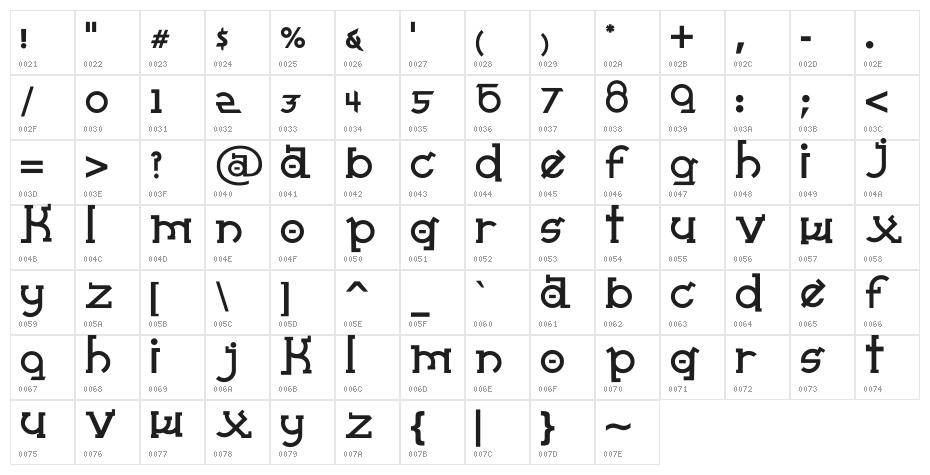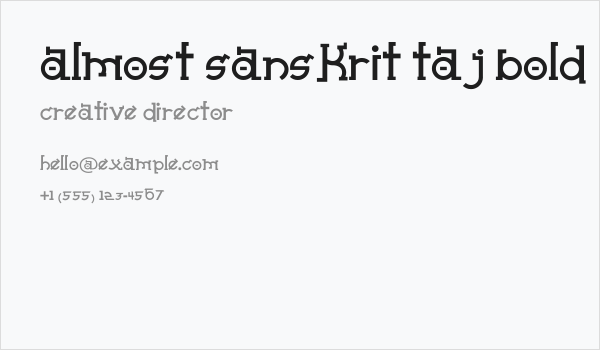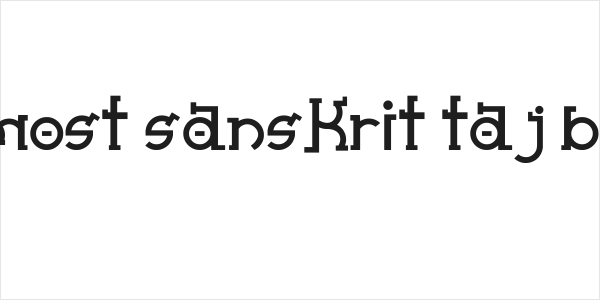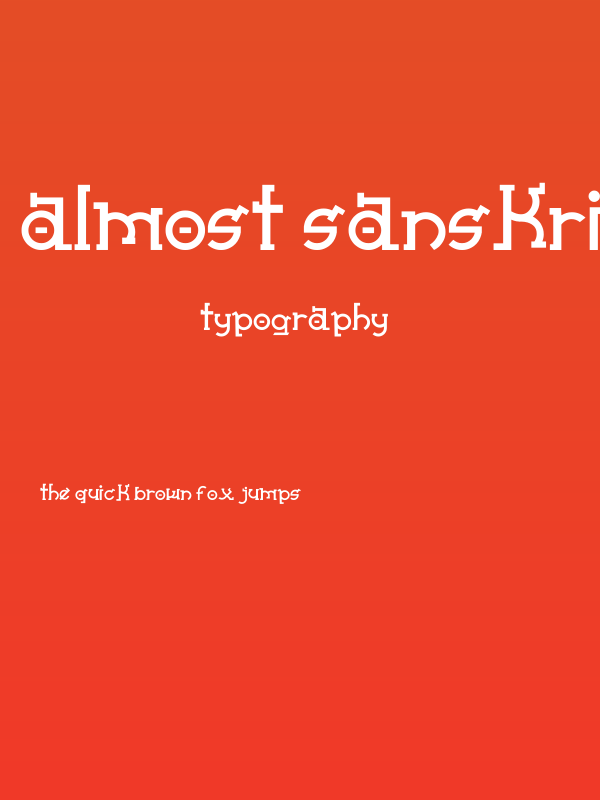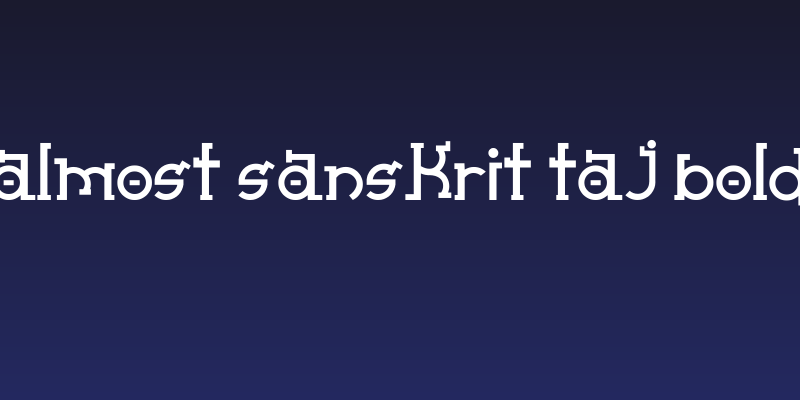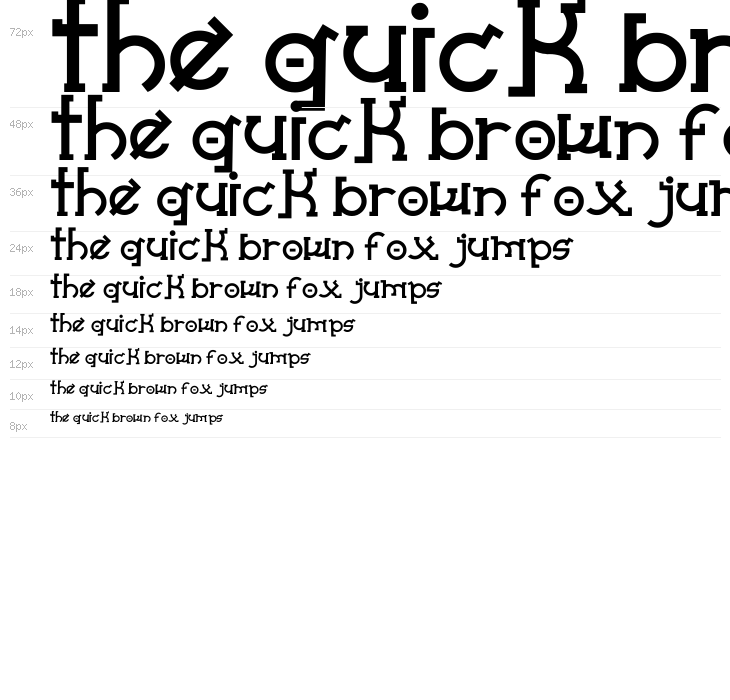
Almost Sanskrit taj Bold Font
Almost Sanskrit taj Bold Description
This font features a unique blend of geometric and decorative elements, reminiscent of traditional Sanskrit script. The characters are bold and have a distinct angular design, with sharp edges and a modern twist. The uppercase and lowercase letters maintain a consistent style, with the lowercase letters mirroring the uppercase in a slightly smaller form. The numbers are equally stylized, with a playful yet structured appearance. Special characters are designed to match the overall aesthetic, providing a cohesive look across all glyphs.
| Proposed Projects | Ideal for projects that require a cultural or historical touch, such as event posters, book covers, or branding for cultural events. |